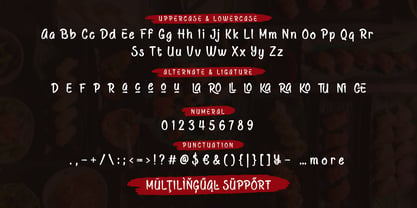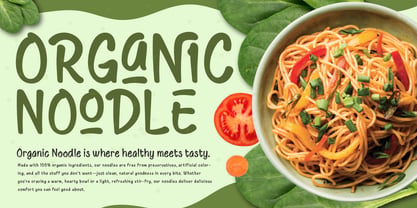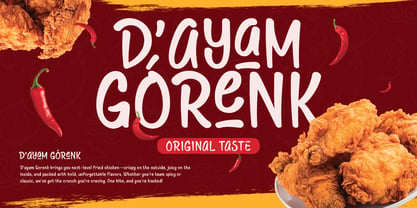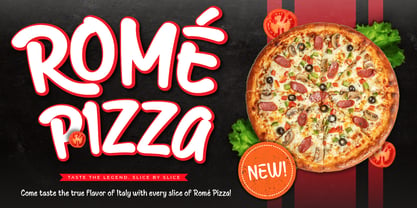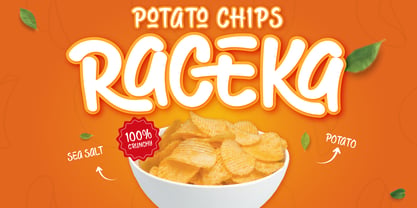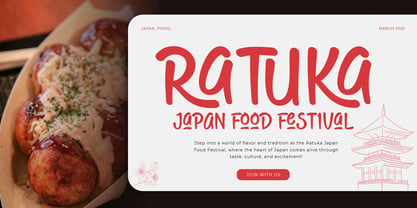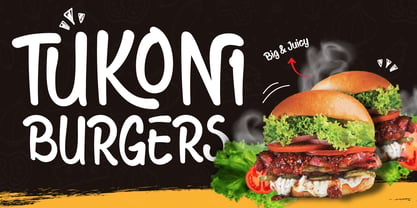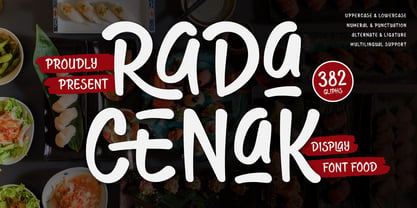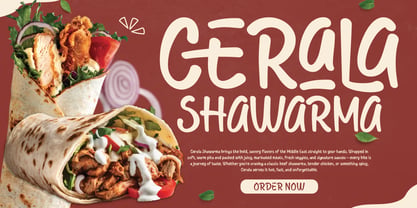
Rada Cenak
The Rada Cenak Font Family was designed by Rozikan and published by Twinletter. Rada Cenak contains 1 styles. More about this family
Rada Cenak is a deliciously bold food display font designed to bring flavor and fun to your creative projects. With chunky curves, playful energy, and a mouthwatering personality, this font is perfect for everything related to food—whether it’s restaurant branding, food packaging, café menus, or culinary social media content.
The letters of Rada Cenak are crafted to feel inviting and flavorful, making any text pop like a tasty treat. Its cheerful style instantly adds warmth and approachability, helping you capture attention and communicate your message with charm. If you're working on a project that needs to feel tasty, vibrant, and irresistible—Rada Cenak is your secret ingredient.